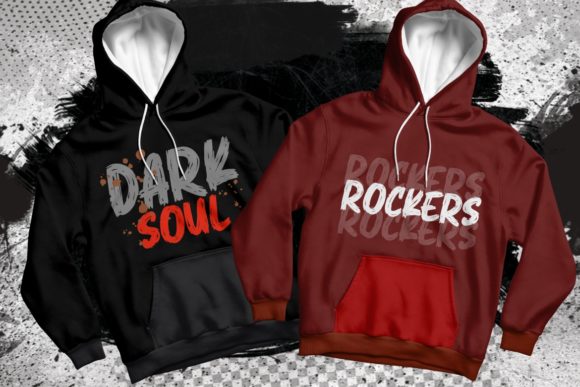
Grunge! Font
Grunge! is a bold and chunky display font, designed with the help of a brush pen. This versatility will appeal to a wide range of crafty ideas, from letterheads and titles, to stationery.